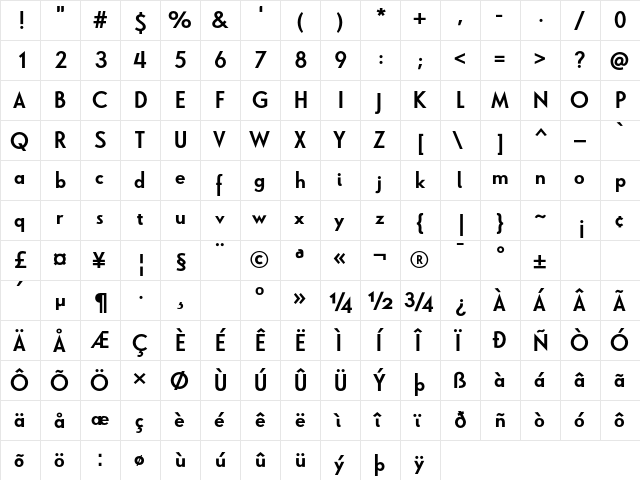
Le Havre Bold Bold
Design Context for Le Havre Bold Typeface
Le Havre Bold offers clean, dependable letterforms without strong stylistic allegiance, making it a practical choice for designers who need flexibility. Its bold stroke weight gives it real presence on the page.
Pro Tip: Pair Le Havre Bold with a font of contrasting weight or personality to build a more expressive typographic hierarchy.